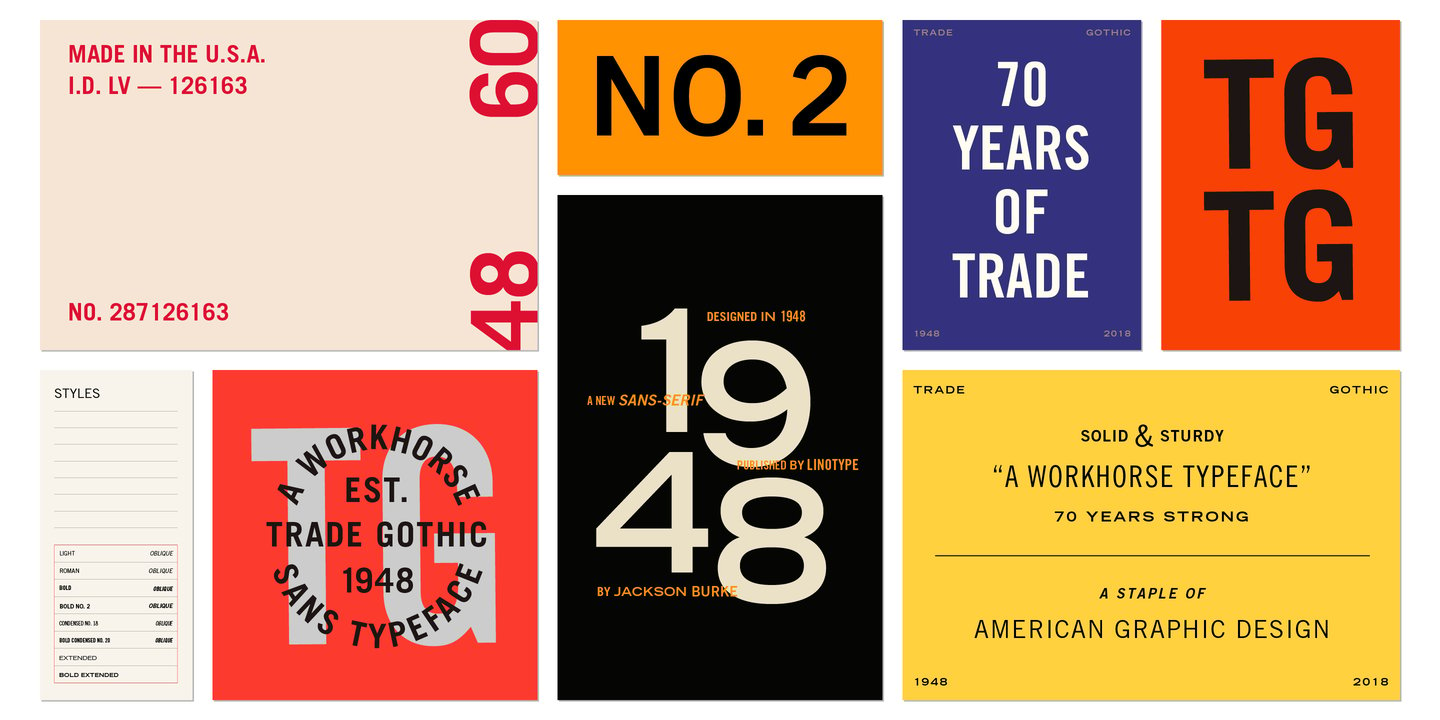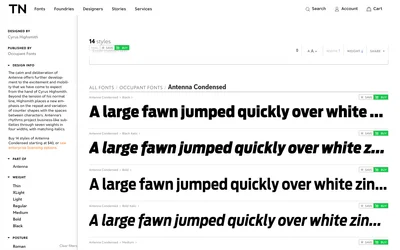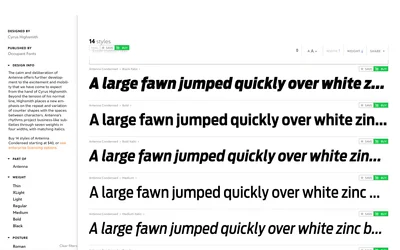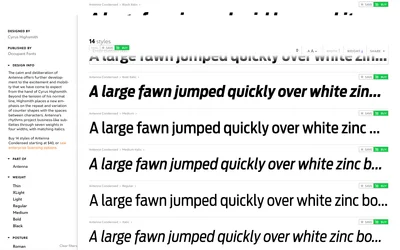
Antenna Condensed vs Trade Gothic
Antenna Condensed and Trade Gothic are both sans-serif typefaces sharing a condensed foundation. Where Antenna Condensed leans editorial, Trade Gothic brings signage. Compare which suits your Editorial project.
| Feature | Antenna Condensed | Trade Gothic |
| Source | Font Bureau | Linotype |
Recommended: Antenna Condensed
- editorial design character
- Suited for Corporate
- From font-bureau
Consider: Trade Gothic
- signage design character
- Suited for Wayfinding and Packaging
- From linotype